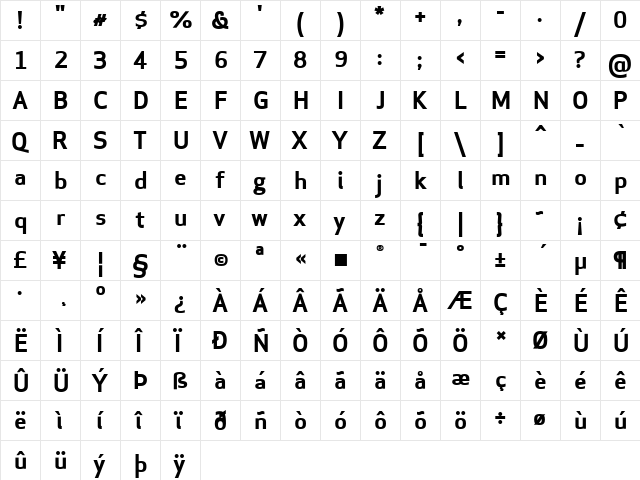
ApexSansBoldT Regular
Design Context for ApexSansBoldT Typeface
ApexSansBoldT offers clean, dependable letterforms without strong stylistic allegiance, making it a practical choice for designers who need flexibility. The heavy weight commands attention and anchors typographic hierarchies.